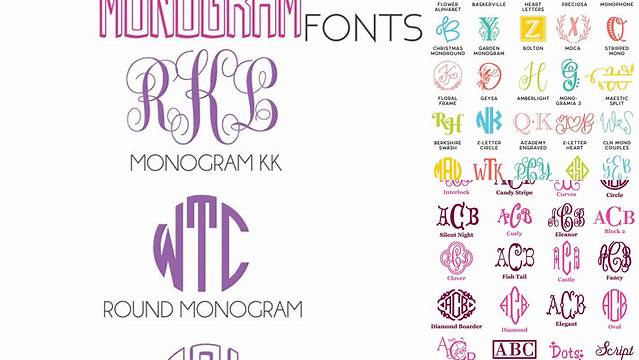
Monogram Logo Font: Free Downloads & Tips
Let's dive into the world of monogram logo fonts! Creating a memorable brand often starts with a visually appealing logo, and the font you choose plays a crucial role. Whether you're designing a logo for your personal brand or a business, finding the right font for a monogram can make all the difference. In this guide, we’ll explore where to find free monogram logo fonts, tips for choosing the perfect one, and how to make the most of your monogram design. So, buckle up and get ready to unleash your creativity!
Understanding Monogram Logos
Before we jump into finding the perfect monogram logo font, let's understand what monogram logos are all about. A monogram logo combines two or more letters, typically initials, into a single, symbolic design. These logos are classic, elegant, and versatile, making them suitable for various brands. From high-end fashion houses to personal blogs, monograms offer a timeless appeal. A well-designed monogram should be instantly recognizable and reflective of the brand's identity. Think of iconic brands like Louis Vuitton (LV) or Chanel (CC) – their monograms are synonymous with luxury and quality. When done right, a monogram logo can communicate sophistication and heritage, even for newer businesses. The key is to choose a font that complements the overall aesthetic and conveys the right message. A modern startup might opt for a sleek, sans-serif font, while a traditional business might prefer a classic serif font. So, take a moment to consider your brand's personality before diving into font selection. Monogram logos are a powerful tool for building brand recognition, so it’s worth investing time and effort into creating a design that truly represents you.
The Importance of Font Choice
The font you select for your monogram logo isn't just a stylistic choice; it's a fundamental part of your brand's identity. The right font can convey personality, professionalism, and the core values of your business. Think of fonts as the voice of your brand – do you want to sound formal and authoritative, or friendly and approachable? The font sets the tone. A serif font, with its classic and traditional look, might be perfect for law firms or established institutions. On the other hand, a sans-serif font, known for its clean and modern lines, could be ideal for tech startups or creative agencies. But it's not just about style; readability is also critical. Your monogram logo should be easy to decipher at a glance, whether it's on a business card, website, or social media profile. Avoid overly ornate or complex fonts that could confuse viewers. Consider the spacing between letters and the overall balance of the design. A harmonious monogram is more memorable and impactful. Furthermore, make sure the font you choose is versatile enough to work across different platforms and sizes. A font that looks great on a large billboard might not be as effective on a small mobile screen. So, choose wisely, guys! Your font is a key element in creating a lasting impression.
Where to Find Free Monogram Logo Fonts
Finding free monogram logo fonts can feel like searching for a needle in a haystack, but fear not! Several excellent resources offer high-quality fonts without breaking the bank. Websites like Google Fonts, DaFont, and Font Squirrel are treasure troves of free fonts, including many that are perfect for monogram logos. Google Fonts is particularly great because it ensures the fonts are web-friendly and easy to use on websites. DaFont has a vast collection, with fonts categorized by style, making it easier to find something specific. Font Squirrel is another fantastic option, known for its selection of fonts with commercial licenses, meaning you can use them for business purposes without worrying about copyright issues. When browsing these sites, use keywords like "monogram," "initials," "elegant," or "classic" to narrow your search. Don't just download the first font you see! Take the time to preview different options and see how they look with your initials. Experiment with different combinations and sizes. Remember to check the license agreement for each font to ensure you can use it for your intended purpose. Some free fonts may only be for personal use, while others allow commercial use. Always respect the font creator's terms. With a bit of patience and diligence, you can find the perfect monogram logo font without spending a dime.
Top Free Monogram Logo Font Choices
Alright, let’s dive into some specific free monogram logo fonts that could be perfect for your project. First up is "Playfair Display," a classic serif font that exudes elegance and sophistication. Its high contrast and refined letterforms make it ideal for luxury brands or businesses aiming for a timeless look. Next, consider "Montserrat," a clean and modern sans-serif font that works well for a variety of applications. Its simplicity and readability make it a versatile choice for contemporary brands. For a touch of vintage charm, check out "Raleway," another sans-serif font with a slightly retro feel. Its unique letterforms add character without sacrificing clarity. If you're looking for something bolder and more impactful, "Oswald" is an excellent option. This sans-serif font has a condensed design that makes it stand out. Another great choice is "Lato," a well-balanced sans-serif font that is both modern and approachable. Its smooth curves and friendly appearance make it suitable for a wide range of brands. Remember to experiment with these fonts in different combinations and sizes to see what works best for your monogram logo. Don't be afraid to get creative and try something unexpected! These are just a few suggestions to get you started, but the possibilities are endless. The key is to find a font that aligns with your brand's personality and conveys the right message to your audience. So, go ahead and explore these free font options and discover the perfect fit for your monogram logo.
Choosing the right font for your monogram logo can feel overwhelming, but here are some tips to make the process easier. First, consider your brand's identity. What are your core values? What message do you want to convey? If you're a luxury brand, you might opt for an elegant serif font. If you're a tech startup, a modern sans-serif font might be more appropriate. Next, think about your target audience. What kind of fonts would resonate with them? A younger audience might appreciate a playful, quirky font, while an older audience might prefer something more classic and traditional. Readability is also crucial. Your monogram logo should be easy to decipher at a glance, even at small sizes. Avoid overly ornate or complex fonts that could confuse viewers. Consider the spacing between letters and the overall balance of the design. A harmonious monogram is more memorable and impactful. Don't be afraid to experiment with different fonts and combinations. Try pairing a serif font with a sans-serif font for a unique and eye-catching look. Get feedback from friends, colleagues, or potential customers. Ask them what they think of your font choices and whether they accurately represent your brand. Finally, remember that less is often more. A simple, well-designed monogram can be more effective than a complex, cluttered one. So, keep it clean, keep it simple, and choose a font that truly represents your brand. With these tips in mind, you'll be well on your way to creating a stunning monogram logo.
Combining Fonts for a Unique Look
Want to create a monogram logo that truly stands out? Consider combining different fonts! Font pairing can add depth, contrast, and visual interest to your design. The key is to choose fonts that complement each other without clashing. A classic pairing is a serif font for one initial and a sans-serif font for the other. This creates a balance between tradition and modernity. For example, you could use "Playfair Display" for one initial and "Montserrat" for the other. Another approach is to use different weights of the same font family. This creates a subtle contrast while maintaining a cohesive look. For instance, you could use "Lato Bold" for one initial and "Lato Regular" for the other. When combining fonts, pay attention to the overall harmony of the design. Make sure the fonts are visually balanced and easy to read. Avoid using too many different fonts – stick to two or three at most. Experiment with different sizes and spacing to see what works best. Use online tools like FontPair or Type Genius to find font combinations that work well together. These tools can suggest pairings based on your existing font choices. Remember to consider your brand's identity when choosing fonts. The fonts should reflect your brand's personality and values. A playful brand might opt for a more experimental font pairing, while a professional brand might prefer a more conservative approach. With a little creativity and experimentation, you can create a monogram logo that is both unique and memorable.
Customizing Your Monogram Font
Once you've chosen your monogram logo font, don't be afraid to customize it to make it truly your own. Many design software programs, like Adobe Illustrator or Canva, allow you to modify fonts in various ways. You can adjust the letter spacing, kerning, and tracking to create a more balanced and visually appealing monogram. Experiment with different weights and styles to see what works best. You can also add unique elements to your monogram, such as flourishes, lines, or shapes. These embellishments can add personality and visual interest to your design. Be careful not to overdo it, though. Too many details can make your monogram look cluttered and difficult to read. Consider using different colors to highlight different parts of your monogram. This can add depth and dimension to your design. Use a color palette that aligns with your brand's identity and values. If you're not comfortable customizing fonts yourself, you can hire a professional designer to do it for you. A designer can help you create a unique and memorable monogram that perfectly represents your brand. Remember that your monogram logo is a key element of your brand identity. It's worth investing time and effort into creating a design that is both visually appealing and reflective of your brand's values. So, go ahead and get creative! Customize your font to make it truly your own.
The Psychology of Fonts
Did you know that fonts can evoke different emotions and associations? Understanding the psychology of fonts can help you choose the perfect font for your monogram logo. Serif fonts, with their traditional serifs (the small strokes at the ends of the letters), often convey a sense of authority, trustworthiness, and sophistication. They are commonly used by established brands in industries like law, finance, and publishing. Sans-serif fonts, on the other hand, have a more modern and clean look. They are often associated with innovation, simplicity, and approachability. Sans-serif fonts are popular among tech companies, startups, and creative agencies. Script fonts, which mimic handwriting, can convey elegance, creativity, and personalization. They are often used by brands in the fashion, beauty, and wedding industries. Display fonts, which are designed to be eye-catching and unique, can convey a wide range of emotions, depending on their style. They are often used for headlines, logos, and other visual elements that need to stand out. When choosing a font for your monogram logo, consider the emotions and associations you want to evoke. Do you want to project authority and trustworthiness? Or do you want to be seen as innovative and approachable? Choose a font that aligns with your brand's personality and values. Remember that your font is a key element in communicating your brand's message to your target audience. So, choose wisely!
Future of Monogram Logo Design
What does the future hold for monogram logo design? Here are some trends and predictions: AI-Powered Design: Artificial intelligence is likely to play a bigger role in logo design, with AI-powered tools helping designers generate ideas, customize designs, and optimize logos for different platforms. Dynamic Logos: Dynamic logos that change and adapt based on context are becoming increasingly popular. This trend could extend to monogram logos, with letters shifting and morphing in response to user interactions. 3D Monograms: With the rise of virtual and augmented reality, 3D monograms could become more common, adding depth and dimension to brand identities. Animated Monograms: Animated monograms that move and evolve could capture attention and create a more engaging user experience. Personalization: Personalization is a key trend in marketing, and this could extend to monogram logos, with brands offering customers the ability to customize their own monograms. Sustainability: Sustainable design is becoming increasingly important, and this could influence monogram logo design, with designers using eco-friendly materials and production methods. In the future, monogram logo design is likely to become more innovative, personalized, and sustainable. Designers will need to stay up-to-date with the latest trends and technologies to create logos that are both visually appealing and effective in communicating brand values. The ability to combine technology and design will set different companies apart.